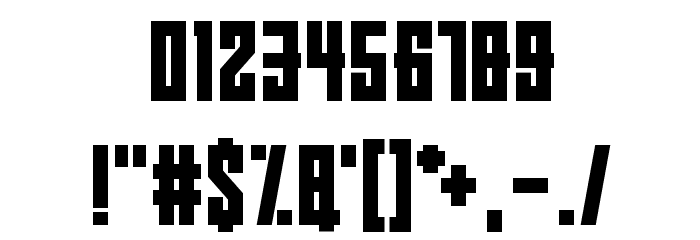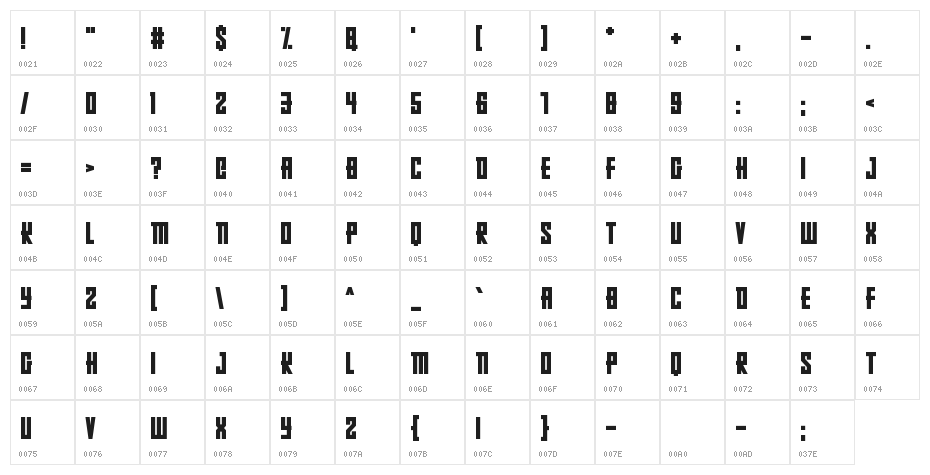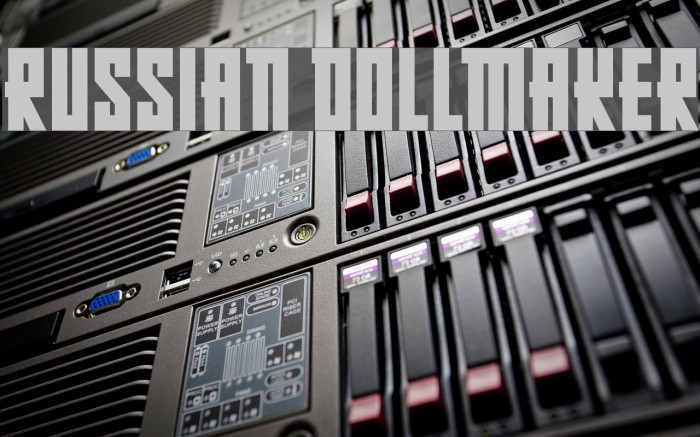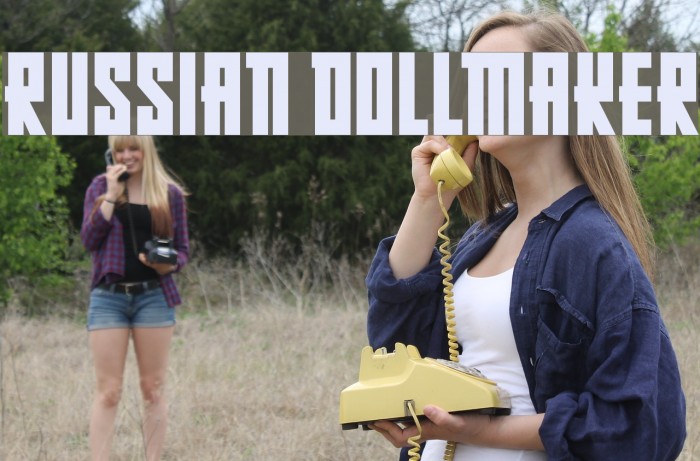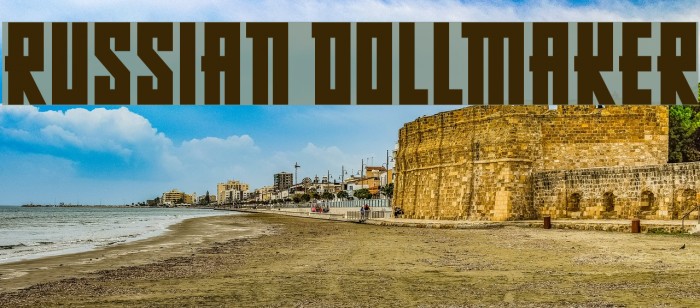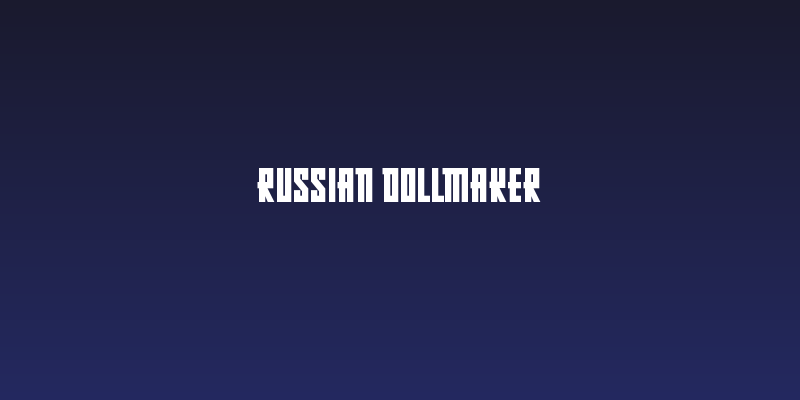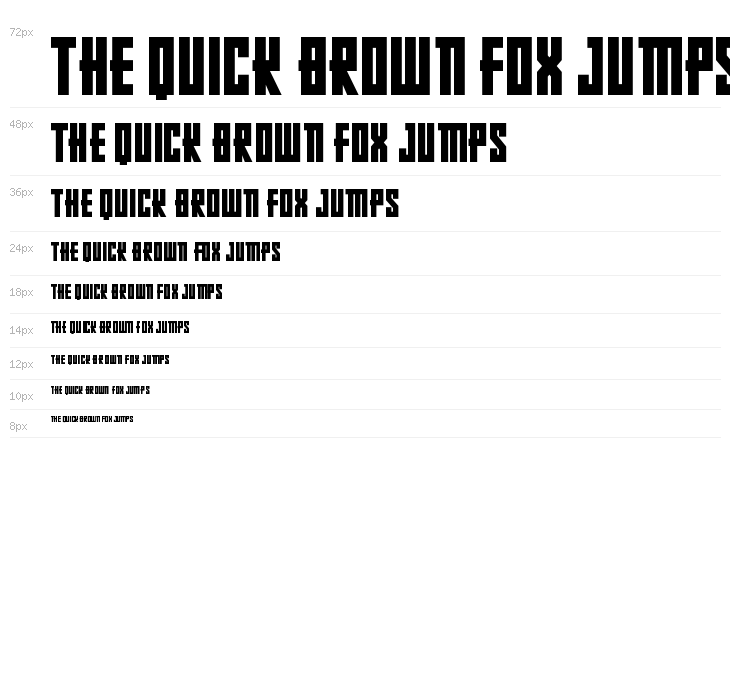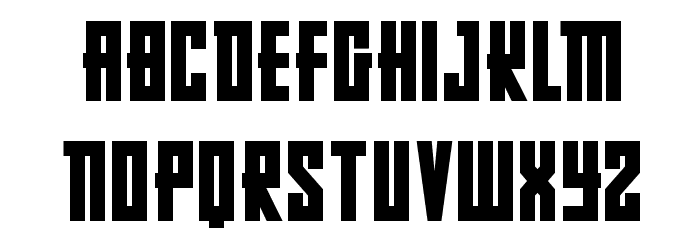
Russian Dollmaker Font
Russian Dollmaker Description
This font features a bold and geometric design with a strong, blocky appearance. Each character is constructed with sharp angles and straight lines, giving it a distinctly modern and industrial feel. The uppercase letters are particularly striking, with a uniform height and width that create a cohesive and impactful visual presence. The numerals and special characters maintain this bold style, ensuring consistency across all elements. The font's design is reminiscent of stencil or architectural lettering, making it suitable for projects that require a strong and assertive typeface.